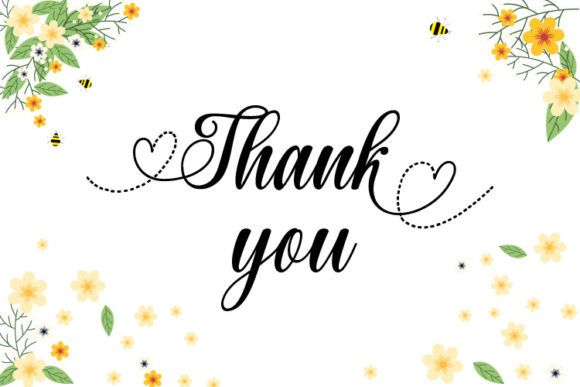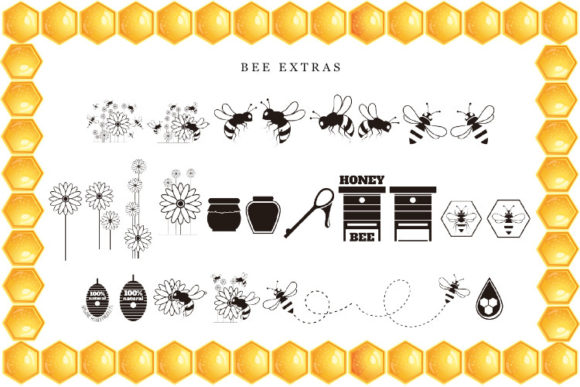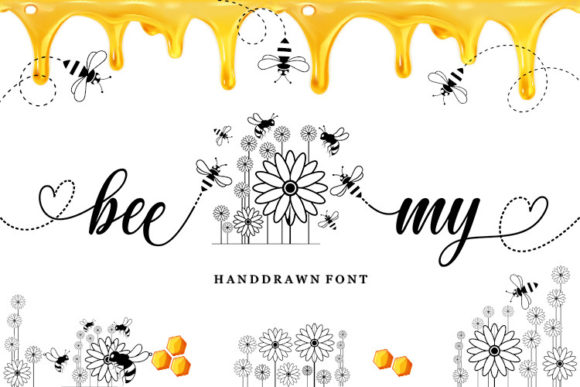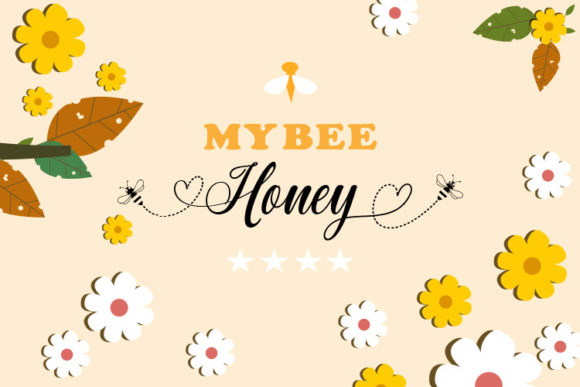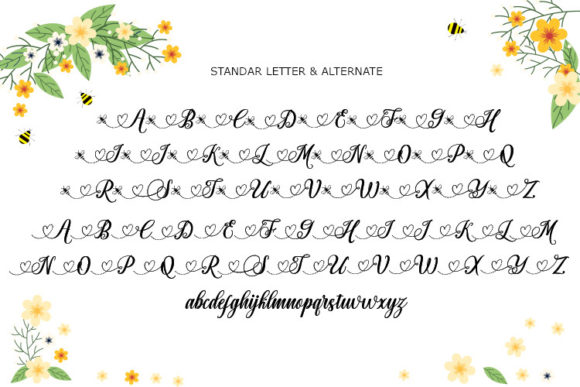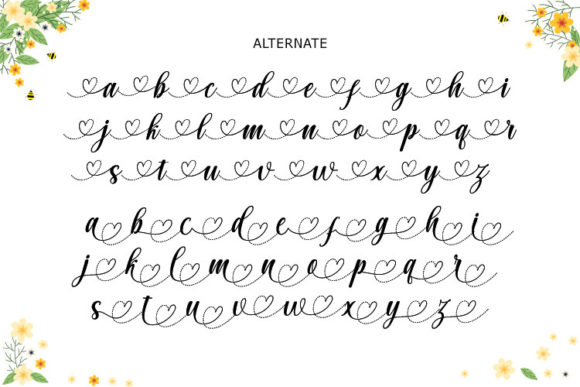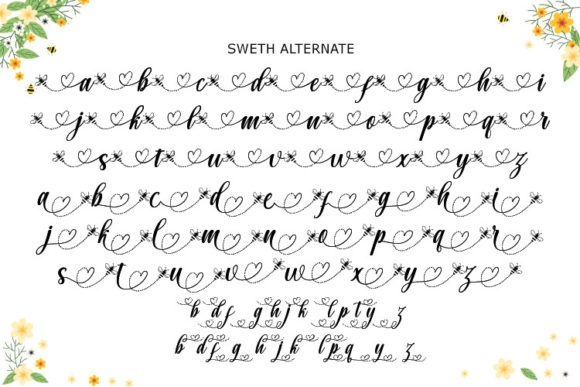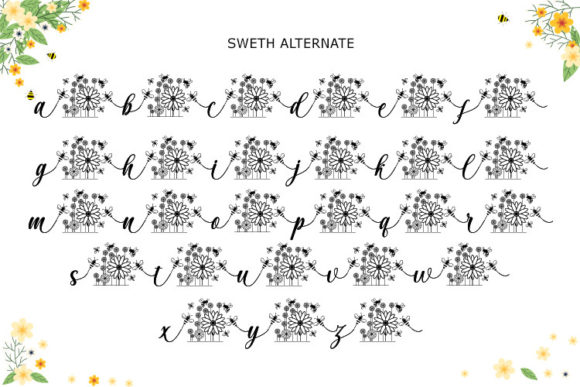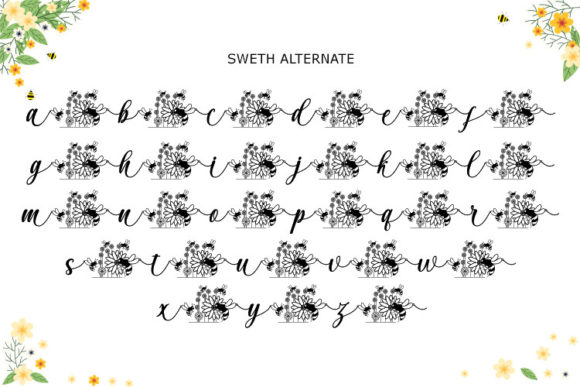
My Bee Honey Font
About My Bee Honey Font
My Bee Honey is a distinct graceful script font. Fall for its ravishing style and use it to create gorgeous designs. This font is PUA encoded which means you can access all glyphs and swashes with ease!